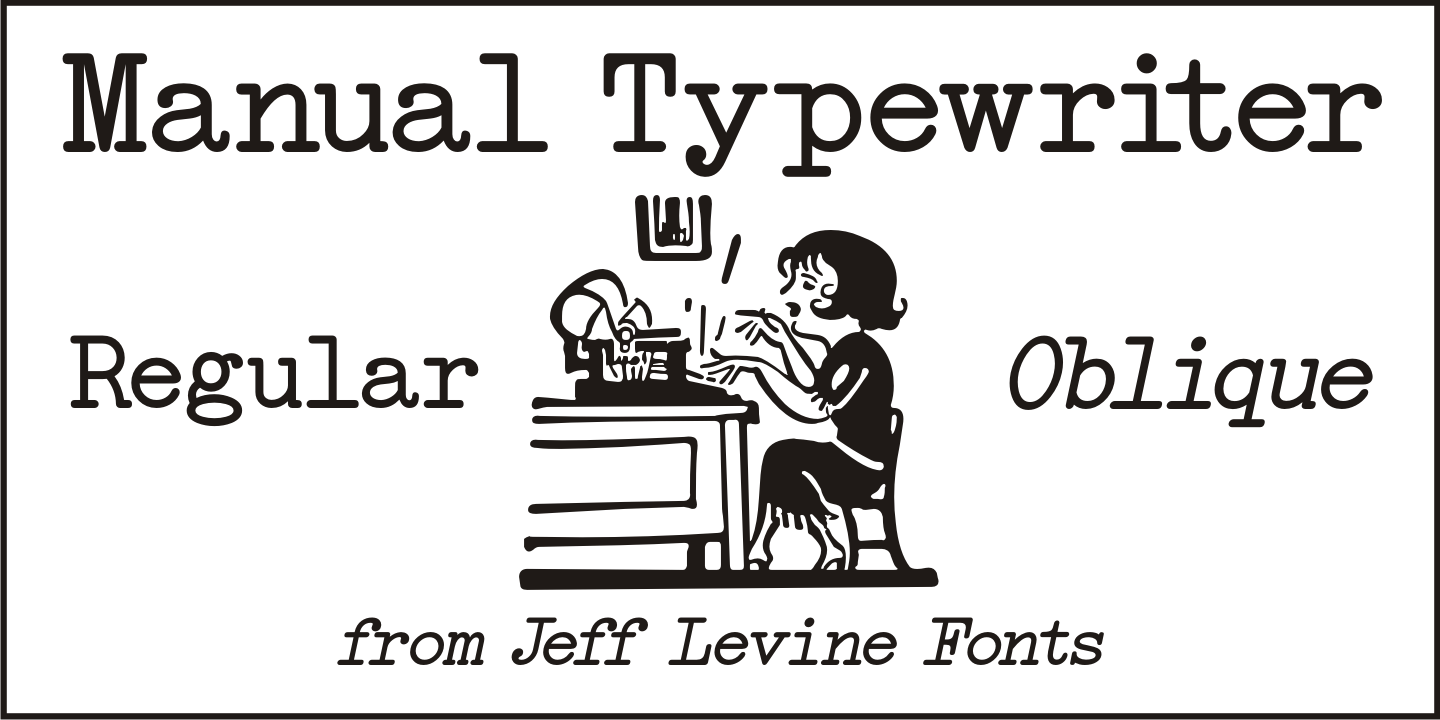
Manual Typewriter
Manual Typewriter JNL was modeled from an example of the 1933 design originally created by Morris Fuller Benton, and is available in both regular and oblique versions.
Manual Typewriter JNL Regular by Jeff Levine Fonts